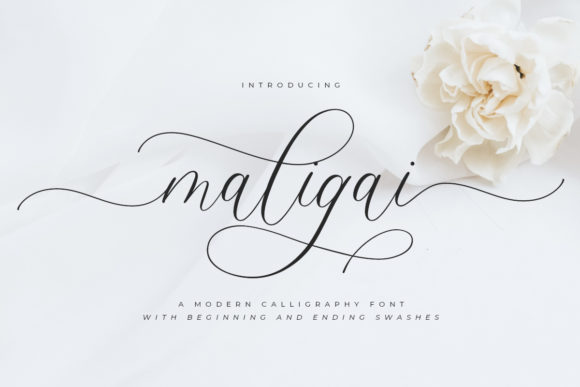
Journey into the realm of captivating calligraphy with Maligai, a script font that dances with romance and sweetness. Its characters pirouette along the baseline, evoking a sense of carefree elegance.
With Maligai, your designs will exude a touch of casual sophistication, making it the perfect choice for an array of creative endeavors. Enchant wedding invitations with heartfelt elegance, let your logos radiate a timeless charm, or infuse your headings with a touch of effortless grace.
Maligai's versatility extends beyond traditional applications. Picture your t-shirts adorned with whimsical quotes, your letterhead exuding professionalism with a hint of flair, or your signage commanding attention with its artistic allure. Unleash your creativity and let Maligai transform the ordinary into the extraordinary.
The possibilities are endless with Maligai. Its PUA encoding grants you effortless access to a treasure trove of glyphs and swashes, empowering you to add intricate details and flourishes to your designs. Craft eye-catching posters that captivate audiences, design badges that demand attention, or create labels that exude a touch of exclusivity.
Maligai is more than just a font; it's an invitation to let your imagination soar. Its versatility and charm will elevate your designs, leaving an indelible mark on the hearts and minds of your audience. Embrace the allure of Maligai and embark on a creative journey that knows no bounds.